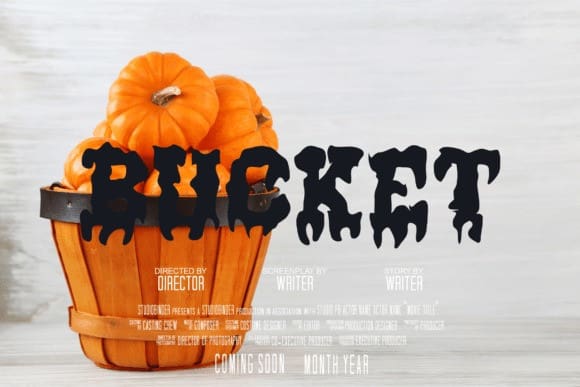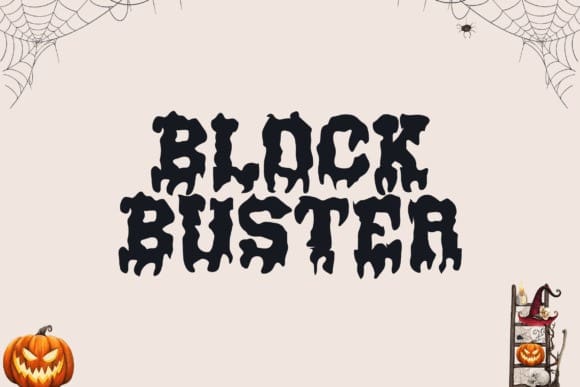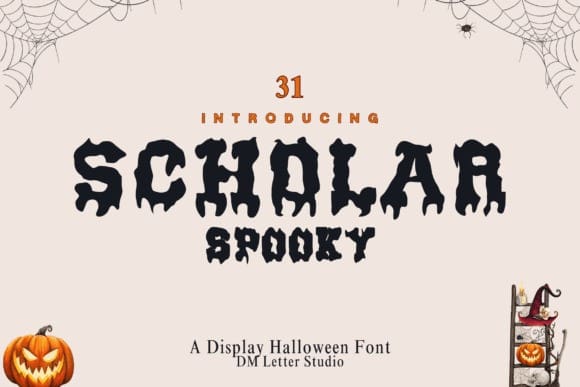
Scholar Block Spooky Font
Scholar Block Spooky Font is a horror varsity font that blends bold collegiate lettering with eerie, Halloween-ready energy. Right from the first glance, this font delivers a chilling twist on classic block typography. Inspired by varsity sports lettering but reimagined with spooky drips, cracks, and shadowed edges, Scholar Block Spooky adds a haunted-school feel to your designs—perfect for horror-themed branding, Halloween posters, creepy merch, or eerie digital content.
Whether you’re creating designs for haunted house events, thriller YouTube thumbnails, or eerie high school logos, this font delivers a loud, gritty presence. Its bold letterforms are softened with distressed texture and irregular cuts, mimicking the unsettling decay of abandoned schools or haunted gymnasiums. Every character looks like it walked off a horror movie title sequence—yet it retains clean legibility and balance across any layout.
Scholar Block Spooky is especially suited for streetwear, spirit-week shirts with a haunted theme, horror movie merch, party invites, or even dark podcast cover art. It also works great in Cricut/Silhouette crafts for spooky DIY projects. With a strong all-caps build, this font ensures every word shouts with power and presence.
Whether you’re designing for October events or horror projects year-round, Scholar Block Spooky is the horror varsity font you need to make your text scream.